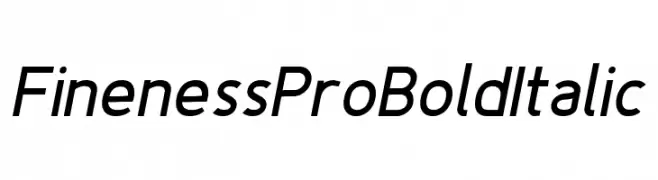
A sleek, bold, and italicized modern font with smooth strokes and dynamic slant.
A sleek, modern, extra light font with uniform stroke width and rounded edges.
A sleek, extra light, and condensed sans-serif font with a modern geometric style.
A sleek, extra light italic font with a modern and elegant style.
A clean, modern font with sleek lines and uniform structure.
A modern, light sans-serif font with clean lines and geometric shapes.
A sleek, modern, light italic sans-serif font with elegant, elongated characters.
A modern, clean sans-serif font with uniform strokes and excellent legibility.
A modern, geometric sans-serif font with a clean and professional look.
A sleek, modern italic font with medium contrast and normal spacing.